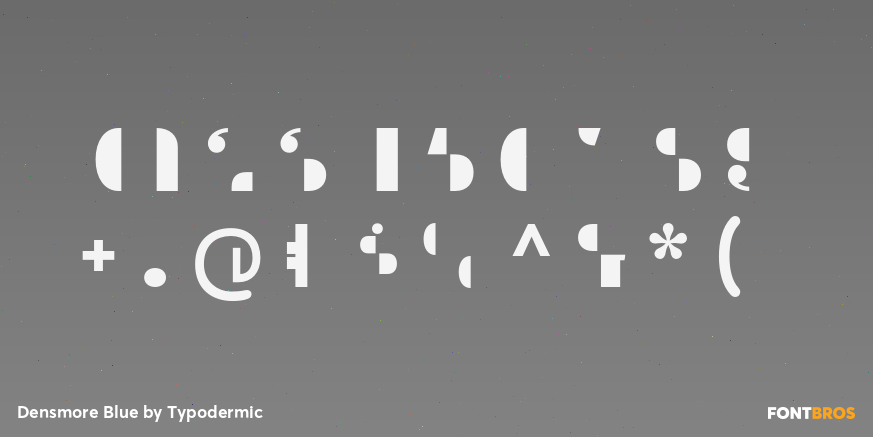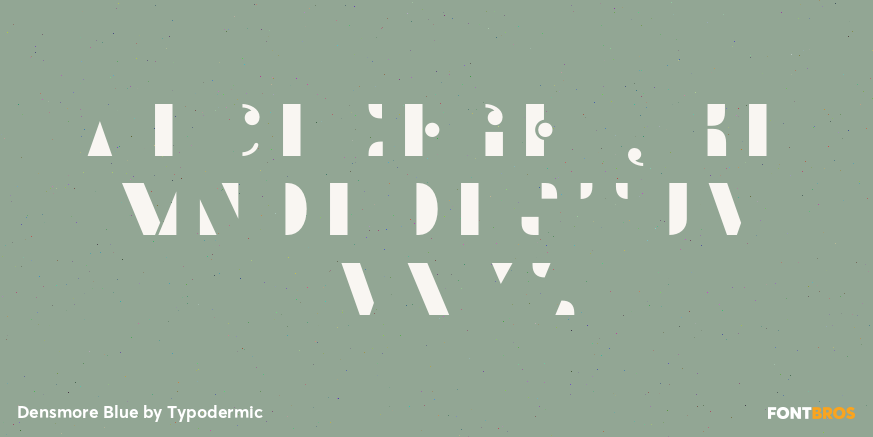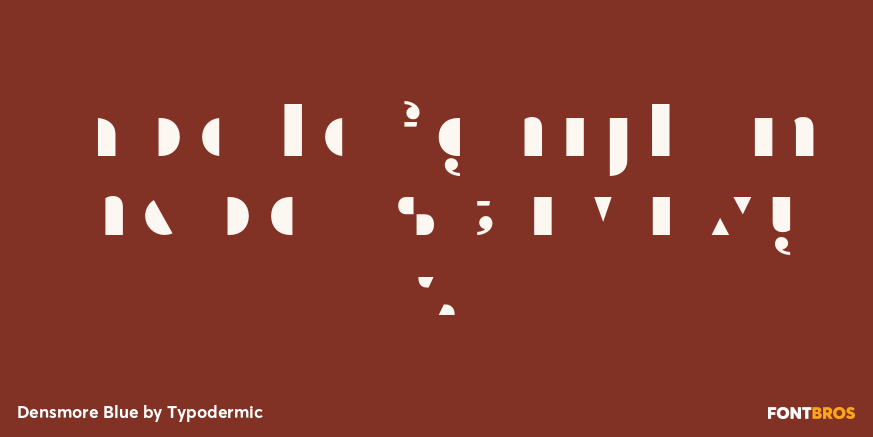
Densmore Blue
Buy NowDensmore Blue is one half of the family’s interlocking two-color construction. Set alone, it reads as an angular partial alphabet; align it with Densmore Pink and the two layers register into complete letters. “Blue” identifies the separation, not a required ink color, so the layer can carry any spot color, material, or animated treatment.
Use Blue as the constant brand layer across beverage flavors, cosmetic ranges, tour merchandise, streetwear capsules, and collaboration graphics, while Pink changes by edition or partner. It can also take foil, metallic ink, gloss, or a darker motion color before the complementary layer slides into place.